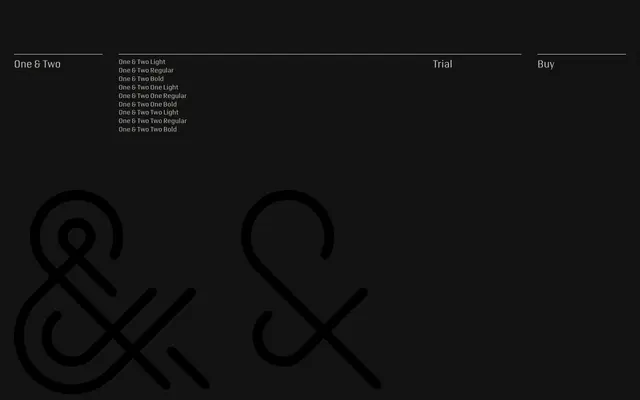
One & Two
The Letters · Elle Williams, Mark Gowing · 2018
A twin-line display typeface by Elle Williams and Mark Gowing that splits into two independent single-line subfamilies, designed for layering in print and branding applications.
Released in 2018, One & Two pairs two discrete mono-line sets, One and Two, that intertwine when used together to form a double-line letterform. Each subfamily carries Light, Regular and Bold weights, giving up to 24 weight combinations when layered, and the fonts support colour separation across the two lines for further compositional control. The typeface is uppercase only, built for display sizes, and includes ligatures for double-letter pairings such as AA, OO, TT and VV.
A twin-line display typeface designed for layering, with a rounded mono-line construction and upper-case-only character set; its primary purpose is visual effect at large sizes rather than text setting, firmly placing it in the display category.